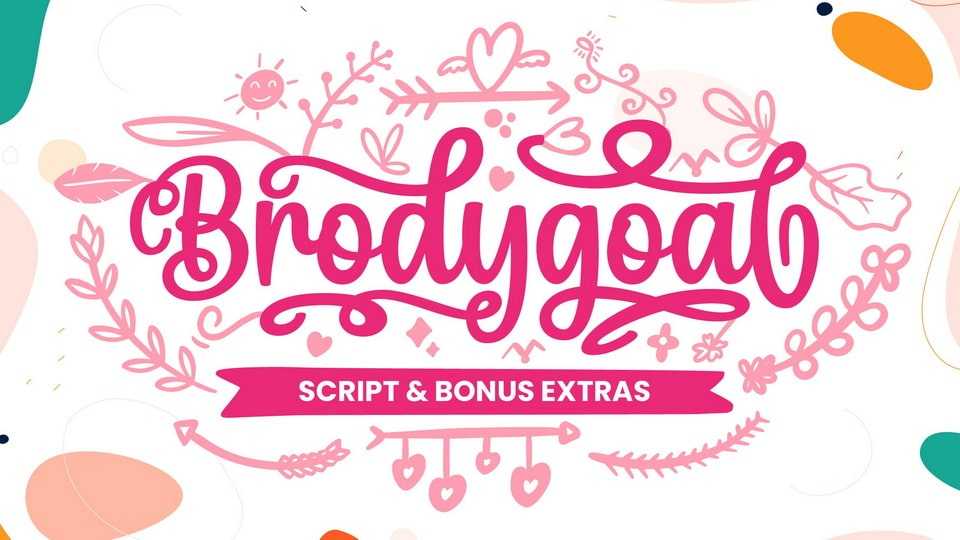
Download Brodygoal font, a delicate, elegant and flowing handwritten typeface. It has beautiful and well balanced characters and as a result, it matches a wide pool of designs.